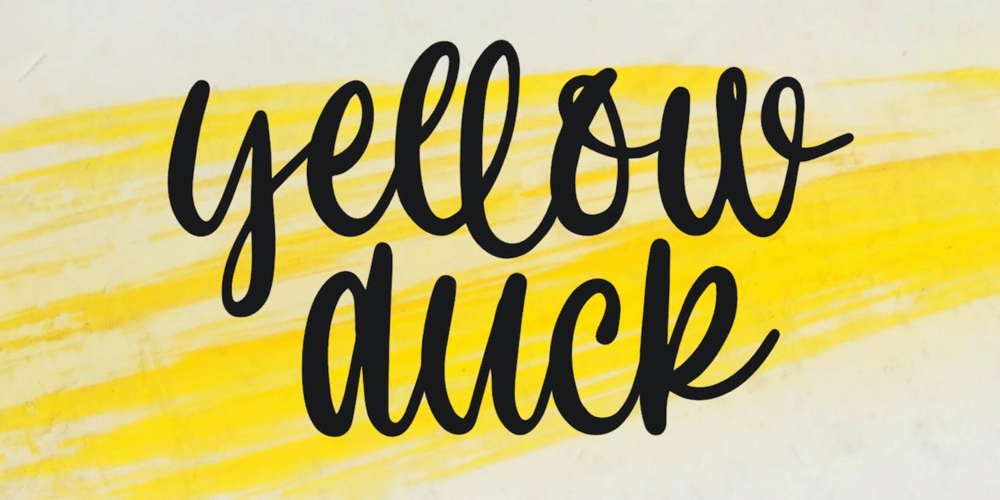
Yellow Duck
Yellow Duck font
Yellow Duck Font Family was designed by Irpan Maulana and published by Create Big Supply. Yellow Duck contains 1 styles and family package options. Introducing Yellow Duck, a delightful bouncy handwritten script font that adds a playful touch to your creative projects. With its lively and energetic style, this font is a perfect choice for various craft projects and beyond.Yellow Duck’s charming bouncy script style brings a sense of joy and character to your designs. Whether you’re working on craft projects, farmhouse decor, shirt designs, websites, SVG creations, home decor, branding materials, blogs, logos, or invitations, this font will infuse your work with a vibrant and dynamic personality.Featuring both uppercase and lowercase letters, Yellow Duck offers versatility and allows for captivating compositions. The font also includes numbers and punctuations, ensuring seamless integration within your text. Its multilingual support enables effective communication across different languages, making it suitable for global audiences.Yellow Duck provides ligatures that enhance the fluidity and aesthetics of your typography, creating a harmonious and visually appealing result. With PUA Encoding, accessing special characters and glyphs is effortless, empowering you to unlock limitless creative possibilities.